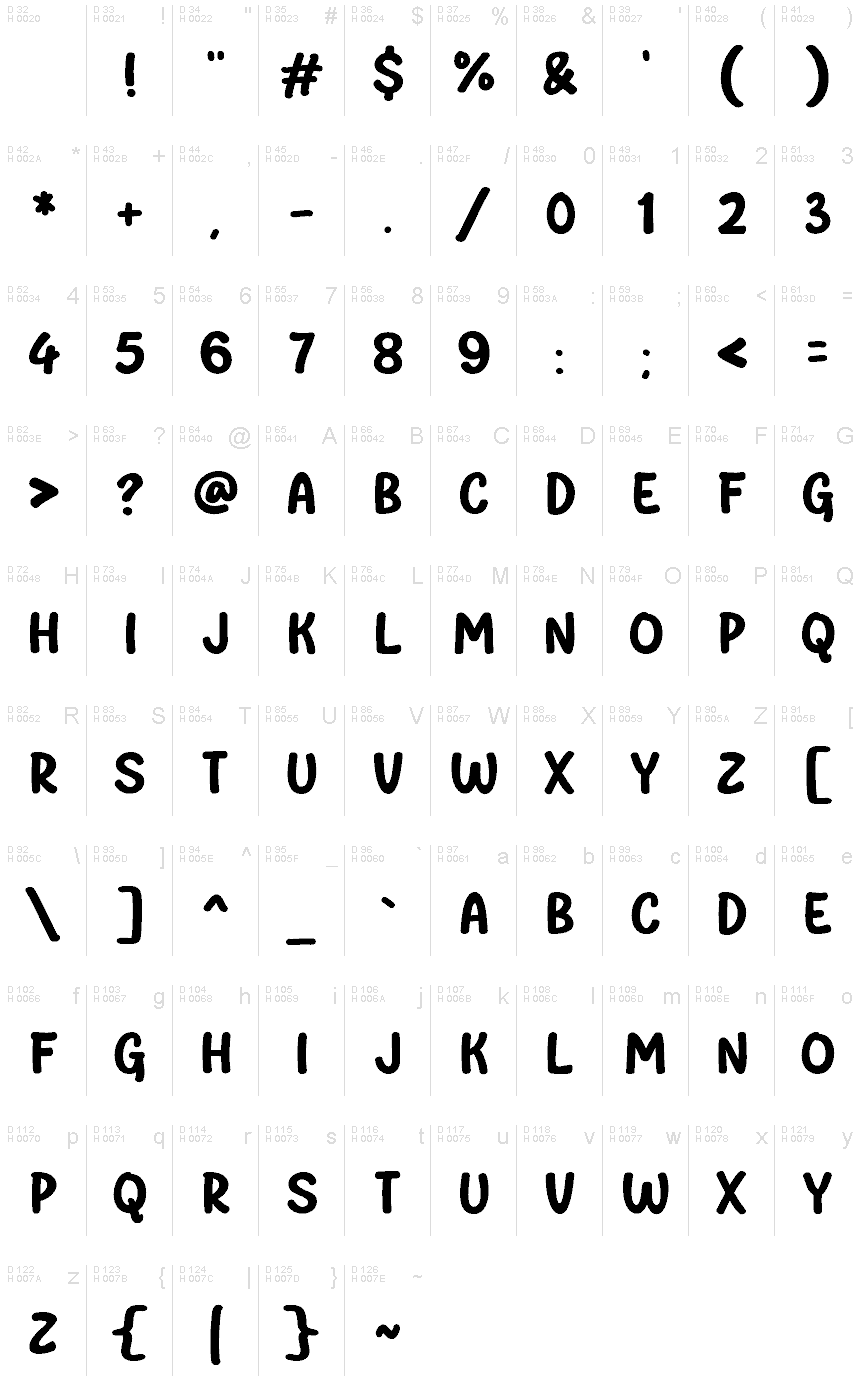
Super Hugsy
Super Hugsy font by MJType is a free handwritten font with a sweet vibe. The careful detailing is obvious in the rounded edges and the strokes that appear as friendly as possible. Spacing between characters makes them easy to read, but it’s still startling how each one of them looks fun on their own and all together as well.
Write your magazines or books’ titles with the lovely Super Hugsy, or type popular character names for birthday parties decorations (Hugsy himself maybe). Use it for designing logo images for children’s brands, packaging products, concert tickets, motivational journals typography, CDs artwork ideas, and even bookmarks.